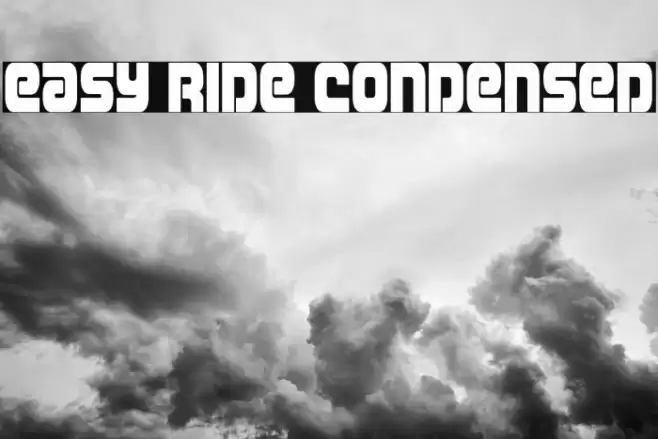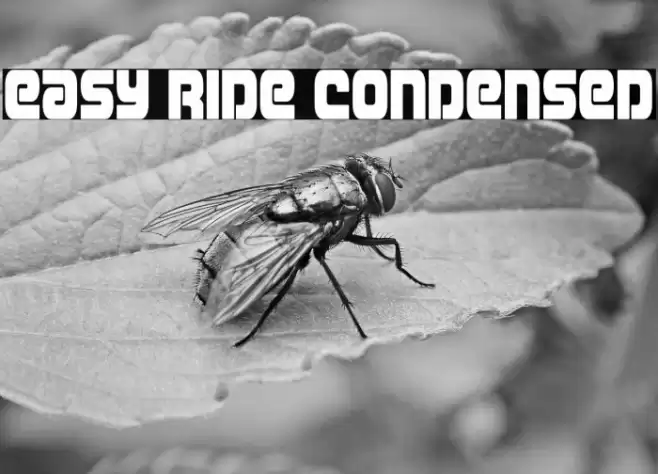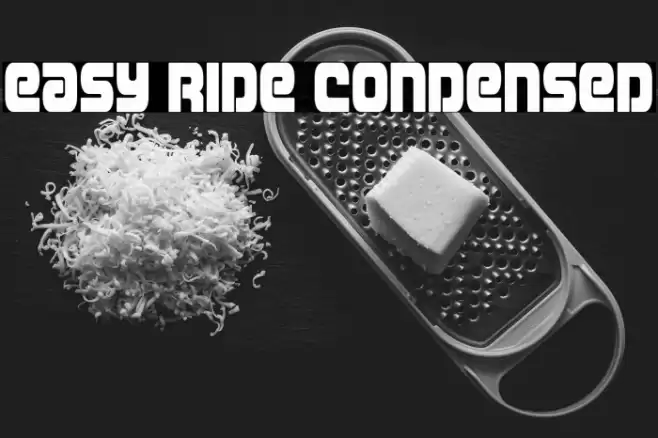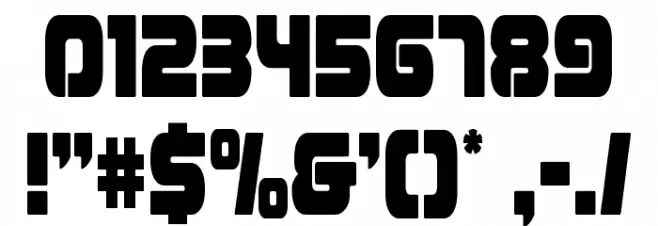
Easy Ride Condensed Font
Easy Ride Condensed Description
This font features a bold and robust design with a distinctly modern and geometric style. The characters are condensed, creating a compact and impactful appearance. The strokes are thick and uniform, contributing to a strong visual presence. The rounded edges soften the overall look, adding a touch of friendliness to the otherwise industrial aesthetic. The uppercase and lowercase letters maintain a consistent height, enhancing readability and uniformity. The numerals and special characters follow the same design principles, ensuring a cohesive appearance across all elements.
A bold, geometric, and condensed font with a modern industrial style from Regular fonts.
- Font: Easy Ride Condensed
- Proposed Projects: Ideal for branding, posters, headlines, and any project requiring a strong, modern aesthetic.
- Character Spacing: Tight